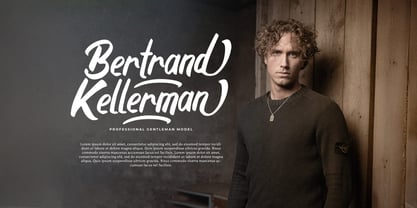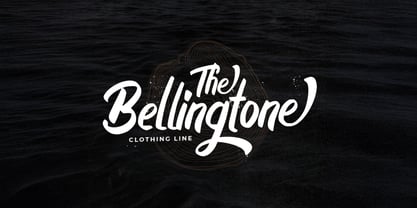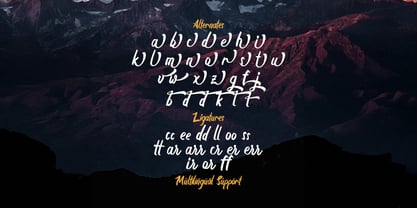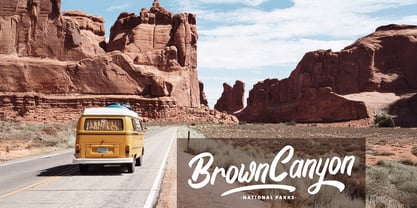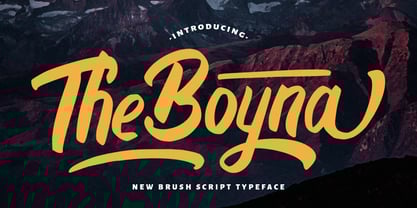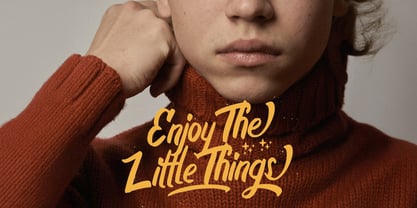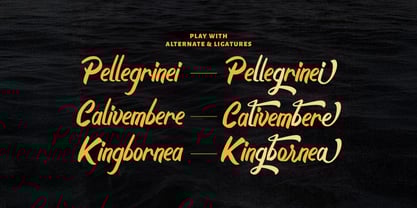
The Boyna Font Family was designed by Virgiawan Listanto and published by Stringlabs Creative Studio. Boyna contains 1 styles. More about this family
Boyna is a bold script font with strong curves, smooth swashes, and a fearless personality. Combining retro charm with modern flair, this font is designed to make your text stand out loud and proud perfect for projects that need attitude and style.
Designers: Virgiawan Listanto
Foundry: Stringlabs Creative Studio
Boyna